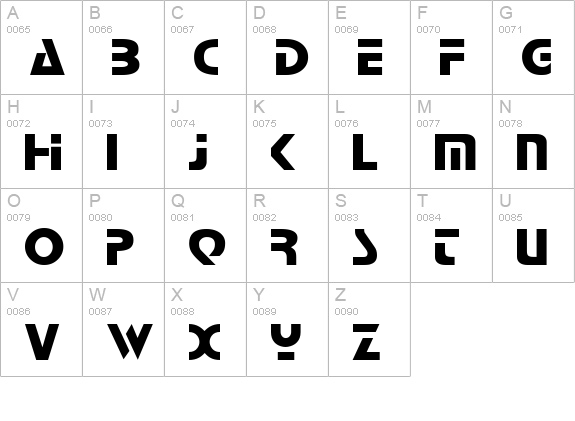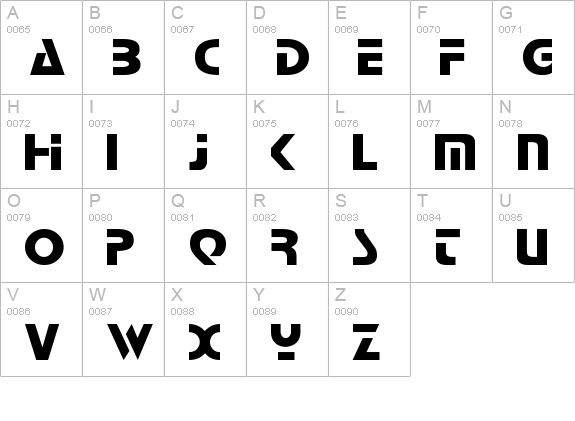
Babylon Industrial Font Details
Babylon Industrial is a bold and captivating font that exudes a sense of power and strength. Its intricate design draws inspiration from the industrial revolution, with its robust and angular letterforms that command attention. This font is perfect for projects that require an edgy and contemporary look, such as logos, posters, and branding materials. With its sharp corners and bold lines, Babylon Industrial adds a touch of grit and determination to any design. Its versatility allows it to be used in a variety of contexts, whether it's for a modern tech startup or a rugged outdoor brand. The attention to detail in each letterform ensures that this font stands out from the crowd, making it a truly unique choice for any creative project. Not only does Babylon Industrial impress with its striking aesthetics, but it also offers the convenience of being freely available to download at FontsMarket.com. This means that designers and creatives can access this font without any cost, making it an affordable option for both personal and commercial use. Whether you're a seasoned designer or just starting out, Babylon Industrial is a font that caters to your needs, offering a powerful and captivating typography solution that won't break the bank. Download Babylon Industrial for free today at FontsMarket.com and unleash its bold and unyielding energy in your designs.